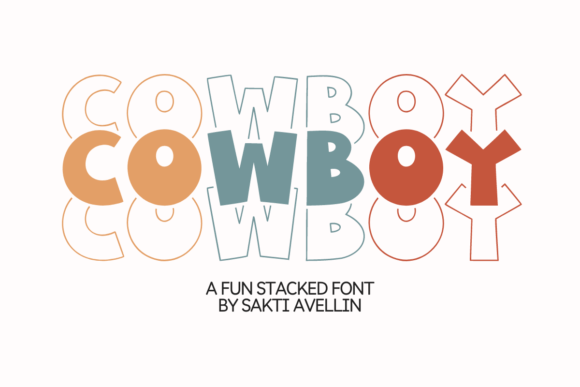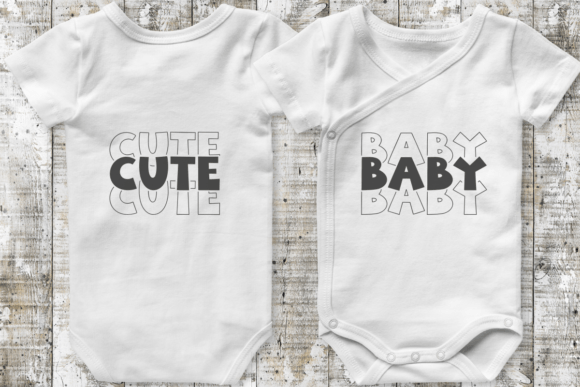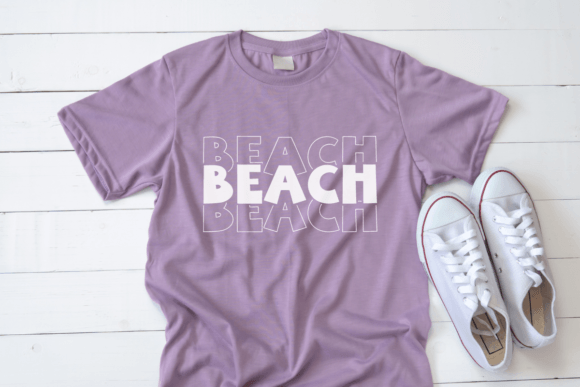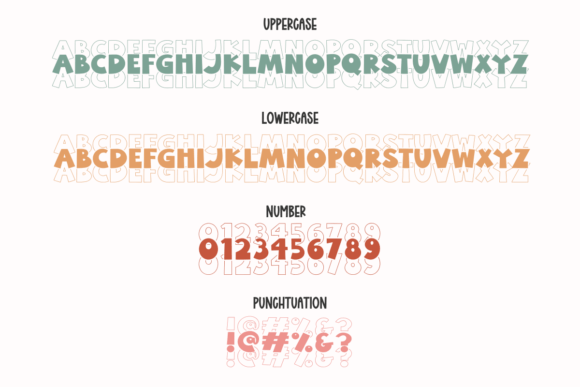
The Spur of Creativity: Introducing Cowboy Font
As designers, we’ve all been there – staring at a blank canvas, trying to spark that elusive creative spark. For some, it’s the hum of a guitar, while for others, it’s the rustle of a well-worn leather belt. For me, it’s the sight of a beautifully crafted font that sets my imagination ablaze. And that’s exactly what happened when I stumbled upon the Cowboy Font – a true showstopper that combines playfulness and sophistication in perfect harmony.
This stacked masterpiece is a game-changer for designers looking to add a touch of whimsy to their projects. With its delightful blend of cute allure and stylish elegance, the Cowboy Font is the perfect choice for anyone seeking to inject some creativity and originality into their design language.
Cowboy Font Key Features
- Font Family: Cowboy is a sans-serif font family, designed to evoke a sense of the American West.
- Unique Characteristics: Distinctive letterforms, such as the “W” and “M” characters, feature a unique “cowboy” flair, adding a touch of personality to text.
- Legibility: Highly legible in both print and digital formats, making it an excellent choice for publications, signage, and other applications where readability is crucial.
Cowboy Font Review
Overall, I’m quite impressed with the Cowboy Font. Here are a few things that stood out to me:
- ✨ The font’s western theme is well-executed and immediately conveys a sense of rugged individualism. Perfect for projects that require a strong country or ranch vibe.
- ✨ The font’s unique letterforms and flourishes add a touch of elegance to what could otherwise be a simple, rustic design.
- ✨ The font is highly customizable, allowing designers to adjust the spacing, weight, and color to suit their specific needs.
- ⚠️ The font may be too bold or overpowering for some projects, particularly those that require a more subtle or minimalist aesthetic.
- ⚠️ Some of the letterforms may be difficult to read at smaller font sizes, particularly for those with visual impairments.
Overall, I think the Cowboy Font is a solid choice for designers looking to add a touch of the wild west to their projects. With a bit of restraint and careful consideration, it can be a powerful tool for creating memorable and engaging designs.
Tips for Getting the Most Out of Cowboy Font
For optimal results, use Cowboy Font for titles, headings, and other text elements that require a strong, rustic feel. You can also pair it with other fonts to create a unique and eye-catching design. Experiment with different font sizes and colors to achieve the desired effect.
Cowboy Font is ideal for:
– Western-themed designs
– Outdoor and adventure-related projects
– Vintage-inspired designs
– Text-based graphics and illustrations